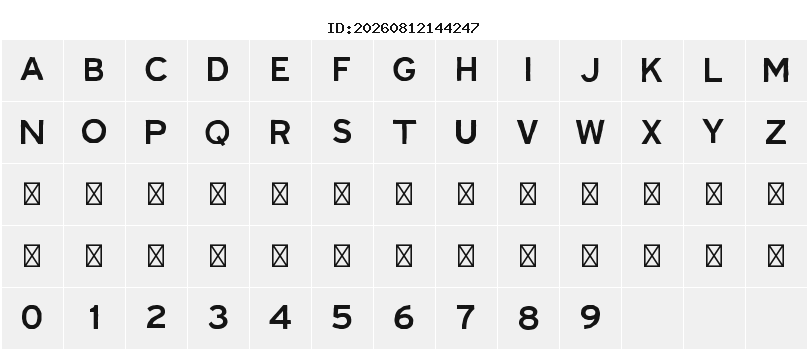
• Font Name: Ripple
• Full Font Name: Ripple
• Designer: Tom Lowe
About Ripple.ttf
Ripple.ttf is a modern, elegant sans-serif font designed for ultimate readability and visual harmony. Perfect for branding, headlines, web design, and print materials.